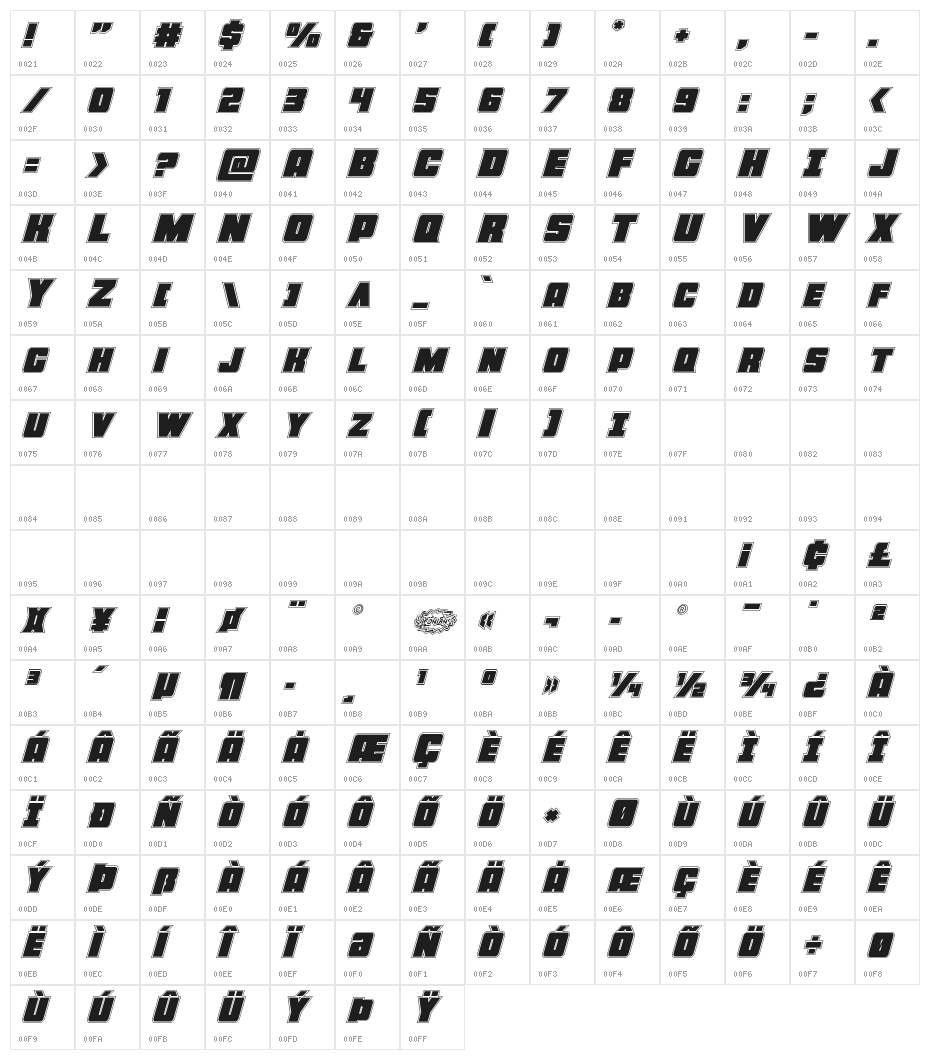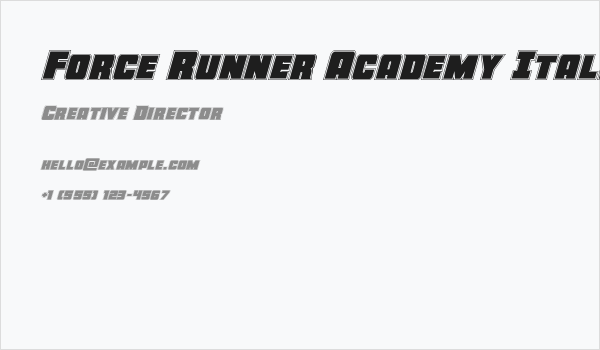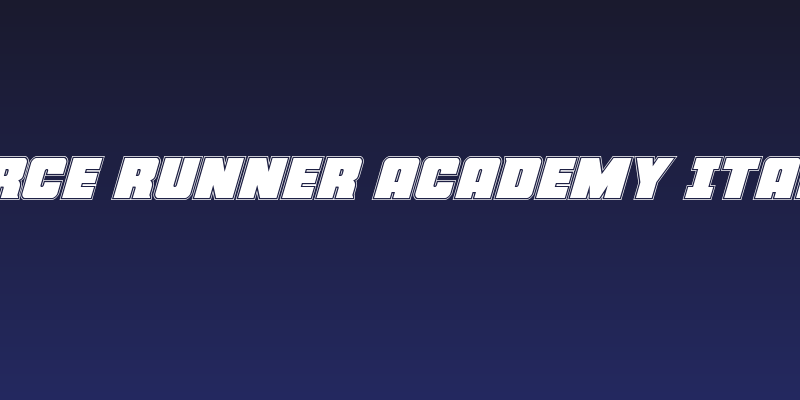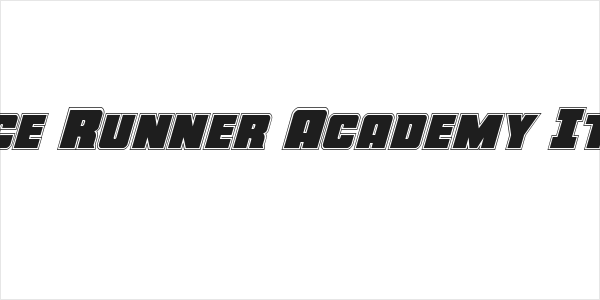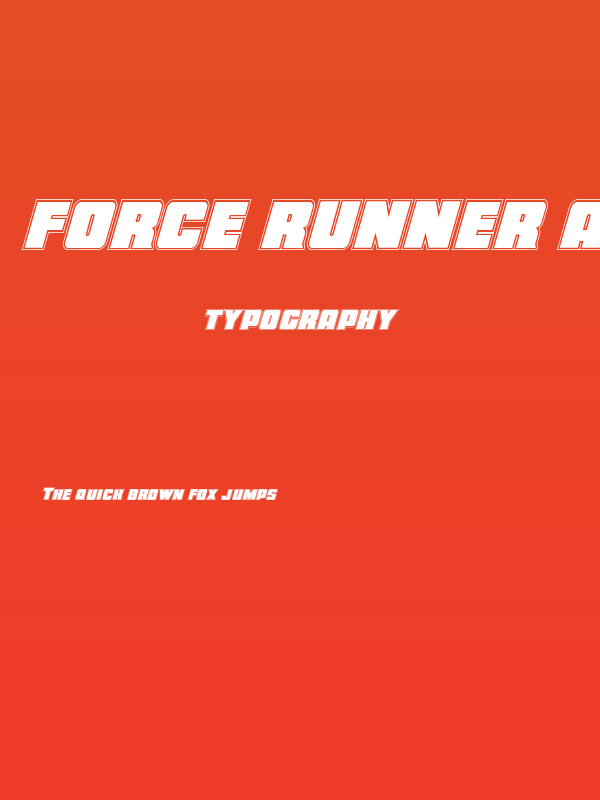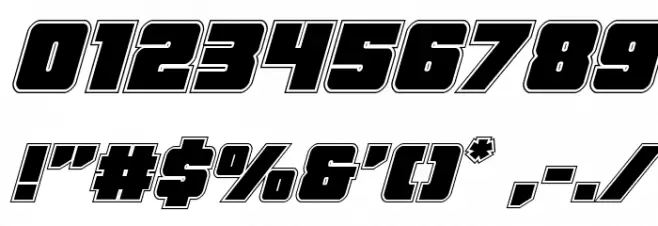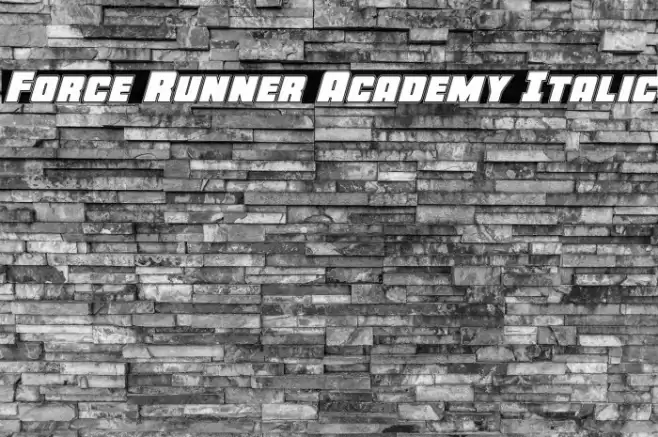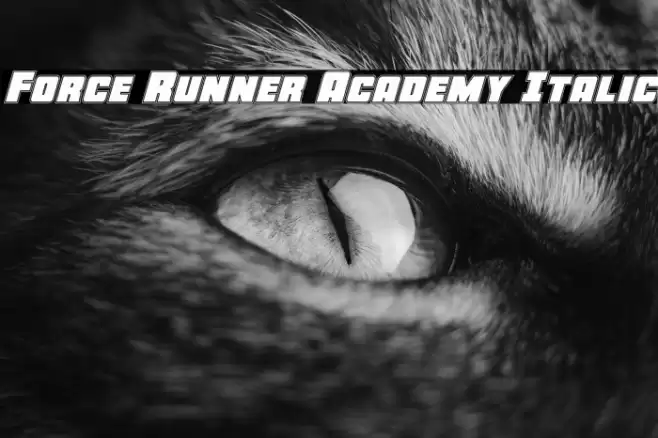
Force Runner Academy Italic Font
This font features a bold and dynamic style with a strong, italicized slant, giving it a sense of motion and energy. The characters are blocky and robust, with a thick outline that enhances their presence. The design is reminiscent of sports or racing themes, making it ideal for projects that require a sense of speed and power. The uppercase and lowercase letters maintain a consistent style, and the numerals are equally bold and impactful. Special characters are included, maintaining the same bold aesthetic.
| Proposed Projects | Ideal for sports branding, racing event posters, dynamic logos, and energetic headlines. |